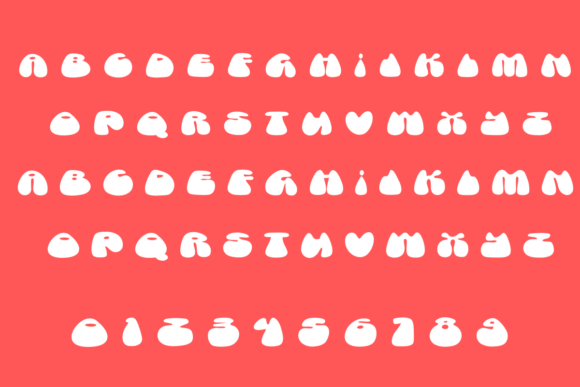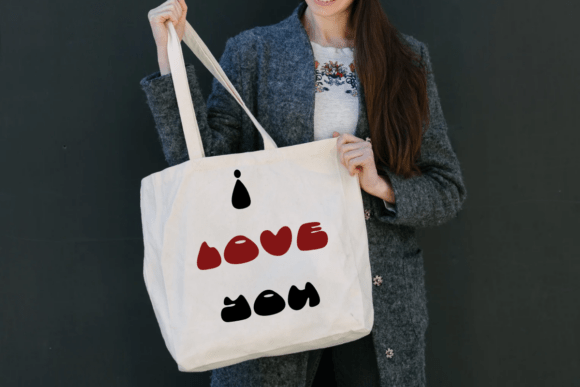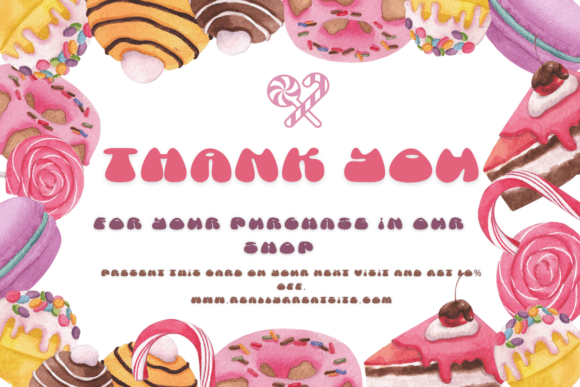
Candy Heart Font
Candy Heart is a fun display font. You can use it for taking notes, writing a diary, or making greeting cards. However, you can still use it for other designs, such as banners, content, mugs, cards, shirts, stationery, social media posts, and more!